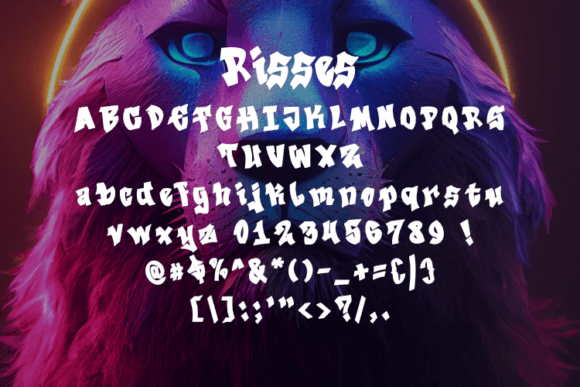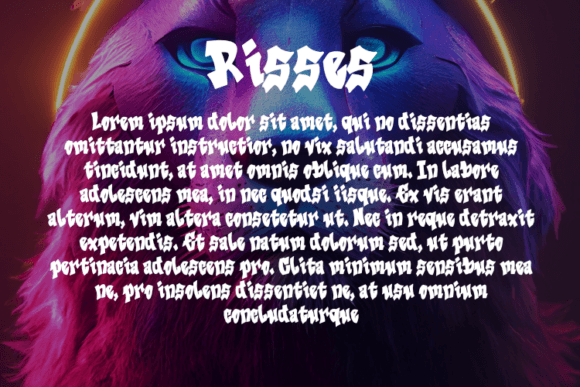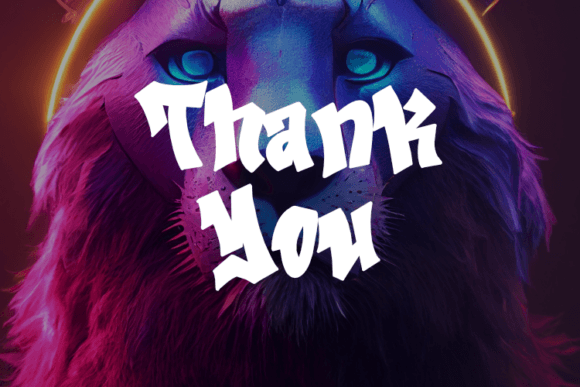
Introduction to Risses Font
Unleash your creativity with Risses – a versatile font uniquely crafted to breathe life into clothing designs, t-shirts, and an array of other products.
Key Features of Risses Font